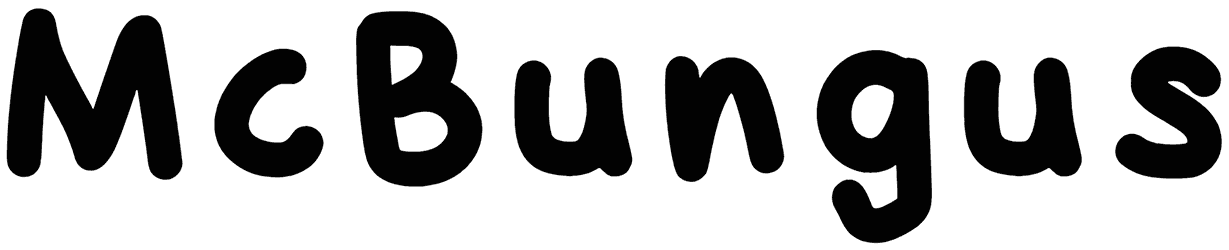
McBungus Font
McBungus was designed to be as close as possible to a natural handwritten font, thus it covers a wide range of applications like posters, book illustrations, online ads, prints on clothes, and educational brochures. This kids font can assist you to share a sense of childhood, happiness, love, and jauntiness with your audience.